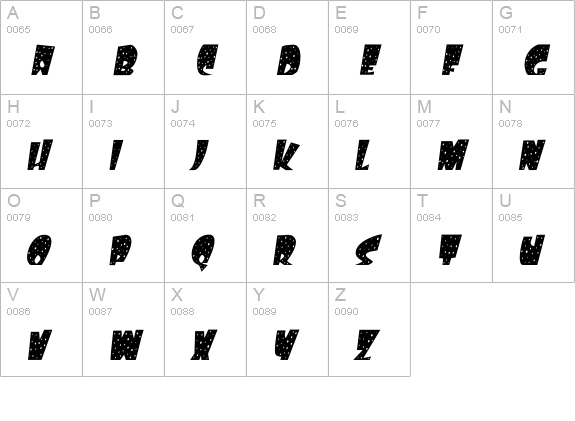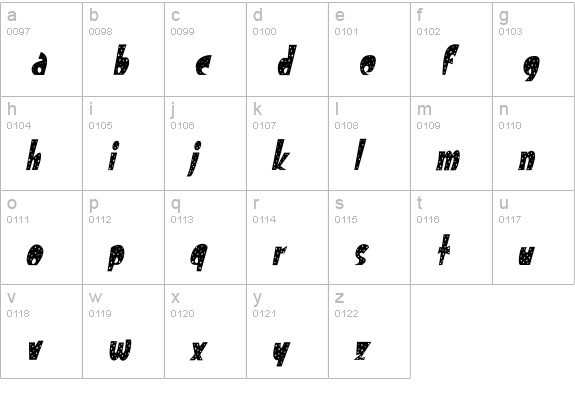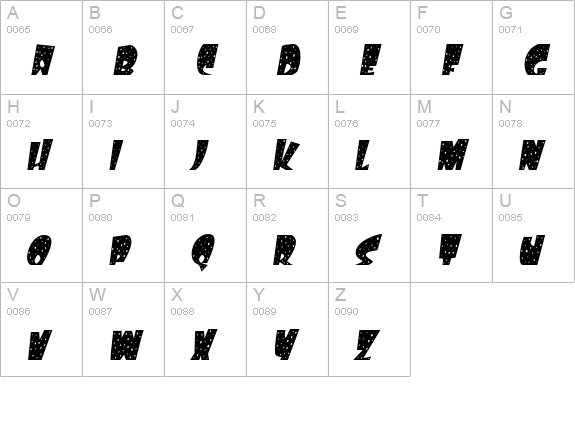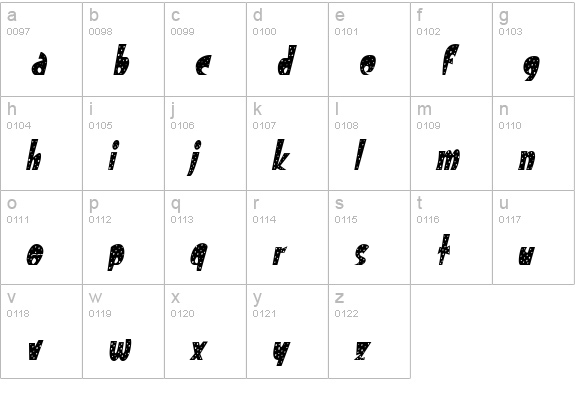
FreckleCondensed Oblique Font Details
FreckleCondensed Oblique is a distinctive, italic variant in the FreckleCondensed typeface family \xE2\x80\x94 well suited to design and typography projects.
FreckleCondensed Oblique font is a charming and playful typeface that adds a touch of whimsy to any design project. With its unique slanted letters and distinct freckled appearance, this font is perfect for creating eye-catching headlines, posters, and branding materials. The slanted italic style of FreckleCondensed Oblique adds a dynamic and modern feel to text, making it stand out from traditional fonts. Best of all, FreckleCondensed Oblique font is available for free download at FontsMarket.com. Whether you're a designer looking to add a fun twist to your creations or a business owner wanting to make a bold statement with your branding, this font is a versatile and accessible option. Don't miss out on the opportunity to elevate your designs with the free and stylish FreckleCondensed Oblique font from FontsMarket.com.